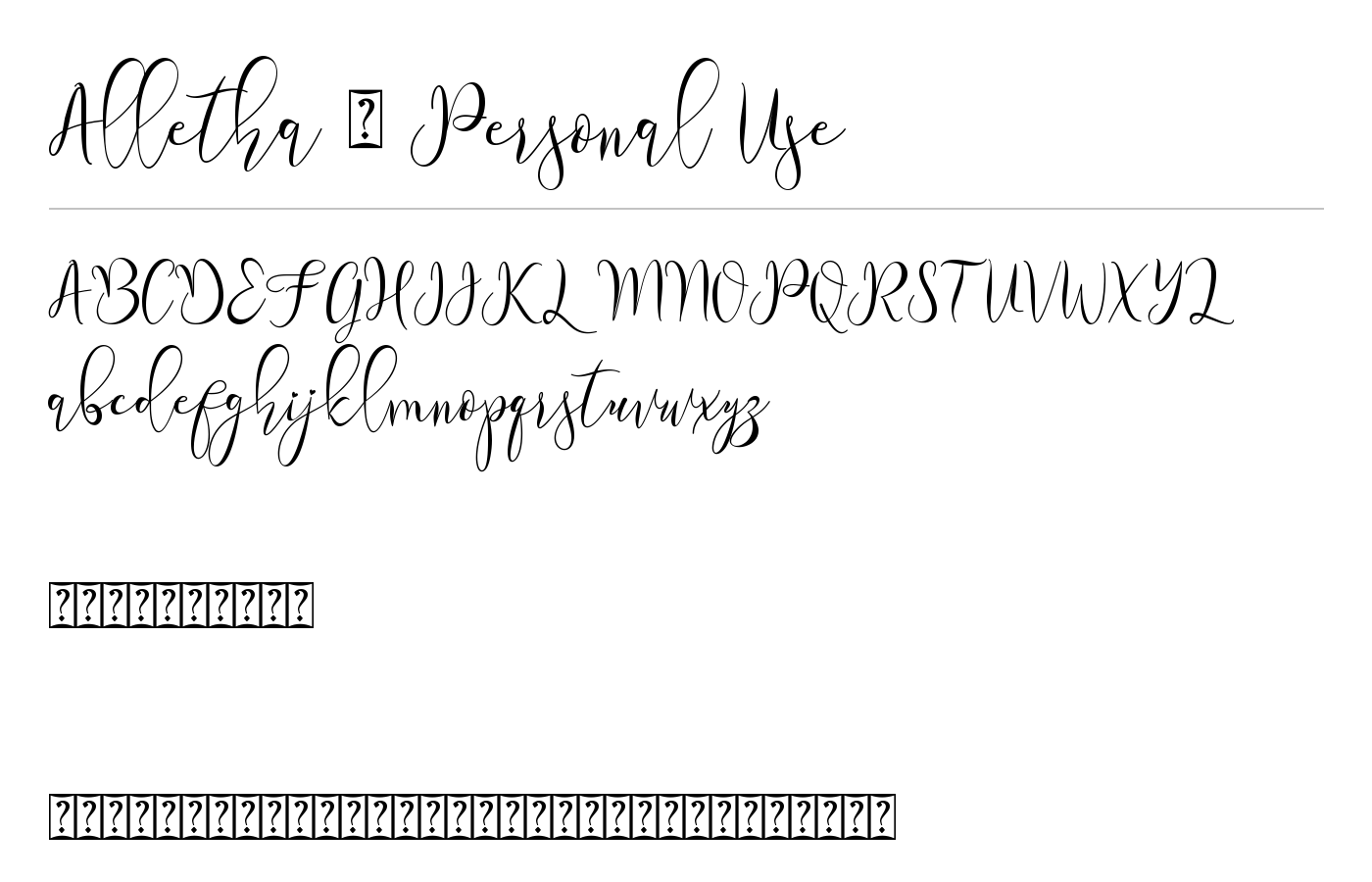
Alletha is a delicate, elegant script font with graceful, flowing strokes that give it a hand-lettered feel. Its thin, smooth lines and charming letterforms make it perfect for romantic, feminine designs such as invitations, branding, and personal projects where a stylish, sophisticated touch is desired.
Alletha Font
About Alletha Font
| Font family | Alletha Font |
| Designer | Yogaletter 2020 (Isroni Yoga Prasetya) |